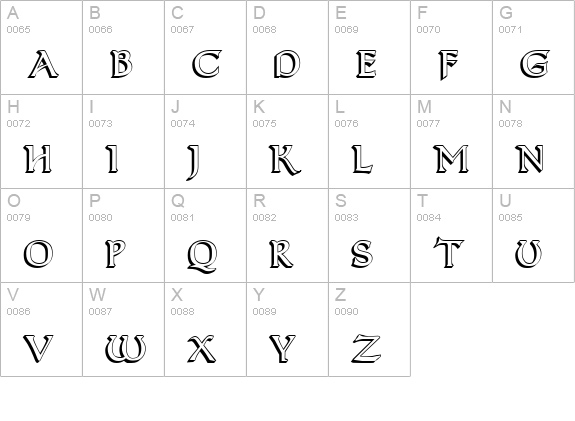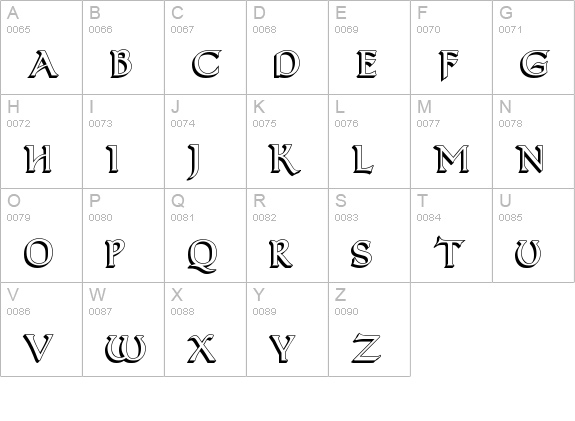
Dumbledor 2 3D Font Details
Dumbledor 2 3D font is a captivating and enchanting typeface that will add a touch of magic to your designs. With its intricate 3D effects and whimsical charm, this font is perfect for creating eye-catching headlines, posters, and branding materials. The elegant and dynamic design of Dumbledor 2 3D font will surely make your text stand out and leave a lasting impression on your audience. Best of all, Dumbledor 2 3D font is available for free download at FontsMarket.com. You can easily access this stunning font and use it for both personal and commercial projects without any restrictions. Don't miss out on the opportunity to add a touch of wizardry to your designs with Dumbledor 2 3D font – download it for free today!